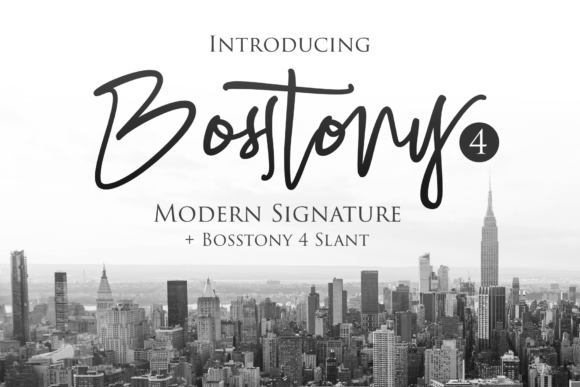
Journey into the realm of exquisite typography with Bosstony 4 Font, a script font born from the union of classic elegance and modern charm. Its graceful curves and stylish variations evoke a sense of timeless beauty, adding a touch of sophistication to any creative endeavor.
Indulge in the allure of Bosstony 4 Font, a script font that captures the essence of romance and heartfelt emotions. Let your words dance across the page, adorned with the delicate strokes and elegant flourishes of this captivating font. Perfect for expressing love, joy, and heartfelt sentiments, Bosstony 4 transforms ordinary text into an extraordinary visual tapestry.
Immerse yourself in the versatility of Bosstony 4 Font, a font that effortlessly adapts to a myriad of creative projects. From heartfelt Valentine's Day cards to enchanting movie titles, from alluring book covers to captivating branding materials, Bosstony 4 seamlessly blends with your vision, adding a touch of sophistication and timeless appeal.
Unleash your creativity with Bosstony 4 Font, a font that invites you to explore the boundless realms of imagination. Its carefully crafted ligatures and alternate styles provide endless possibilities for customization, allowing you to create unique and visually stunning designs that leave a lasting impression.
Embrace the power of Bosstony 4 Font, a font that transcends the boundaries of ordinary typography. Its PUA encoding grants you effortless access to a treasure trove of glyphs and ligatures, empowering you to effortlessly incorporate striking visual elements into your designs.